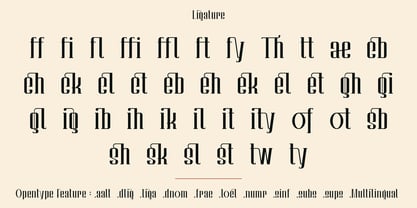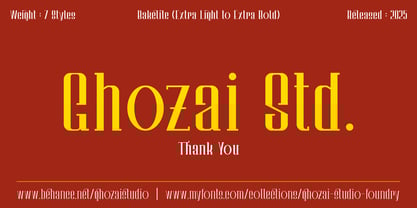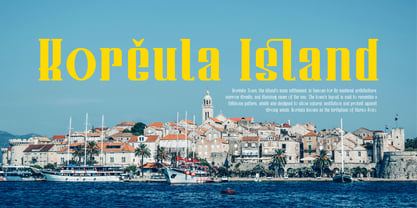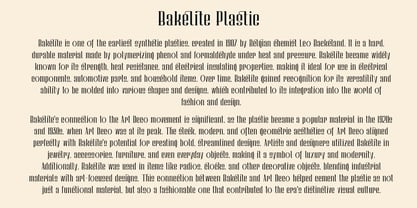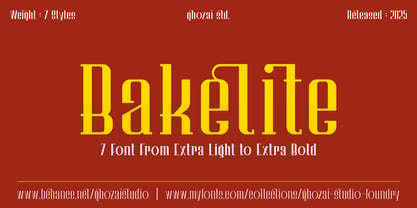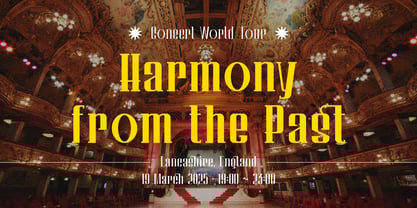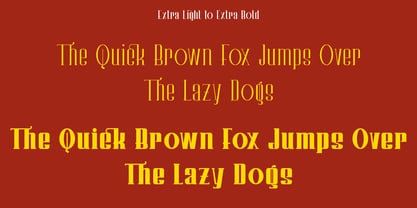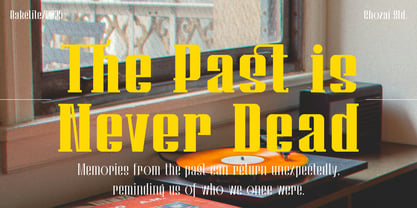
Bakelite
von Ghozai Studio
Die Schriftfamilie Bakelite wurde von Manzur Ghozaali entworfen und von Ghozai Studio veröffentlicht. Bakelite enthält 7 Stile und Familienpaketoptionen.
Bakelite is a tall and elegant slab/serif font available in seven weight styles, ranging from extra light to extra bold, and is inspired by the classic era / art deco era. Its design features a combination of thin curves and straight stems, creating high contrast and adding personality to the font. Bakelite also includes a wide range of ligatures and alternate styles, providing more options for your design needs. With its diverse range of styles, Bakelite is suitable for various design projects, including luxury applications such as hotel logos, restaurant menus, posters, web applications, and wedding invitations, as well as for fashion-related designs, band posters, headlines, and more.